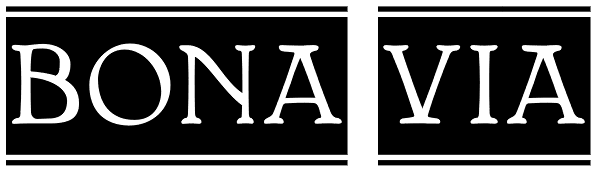
BonaVia
BonaVia is an adaptation of Greater Albion's Bonning and Bonnington families. Its purpose made to enable the construction of banners and mastheads in the style of traditional streetsigns, and offered in Regular and 'Blanc' faces. A selection of...
Bona Via
Bona Via Blanc